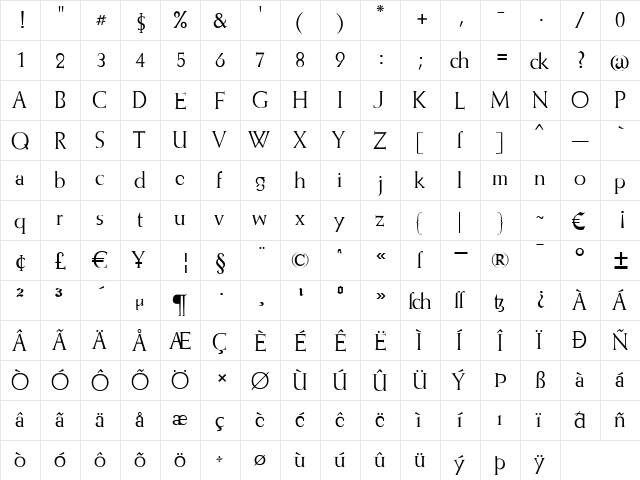
Romantha Regular
| Designer | Prof. Rudolf Koch |
Design Context for Romantha Typeface
Romantha offers clean, dependable letterforms without strong stylistic allegiance, making it a practical choice for designers who need flexibility.